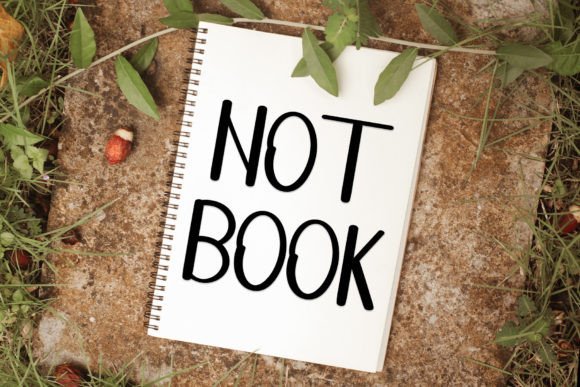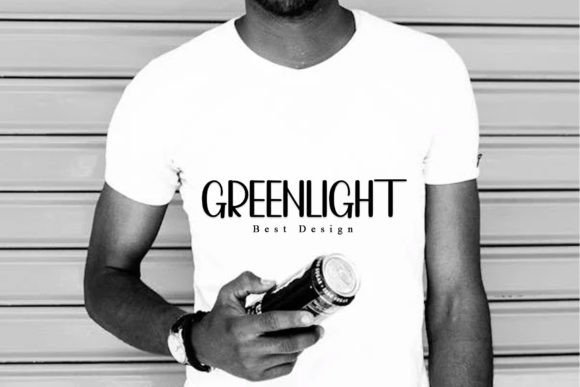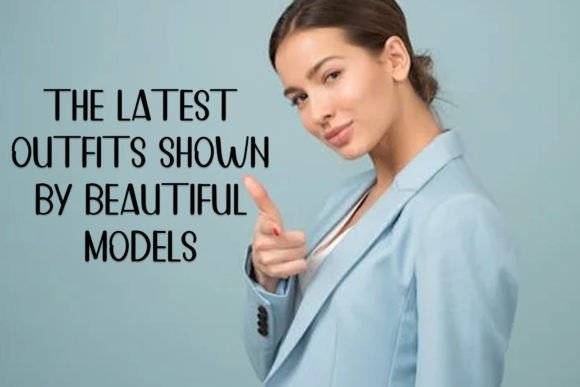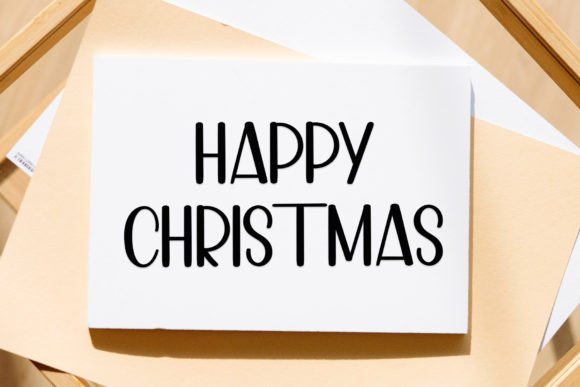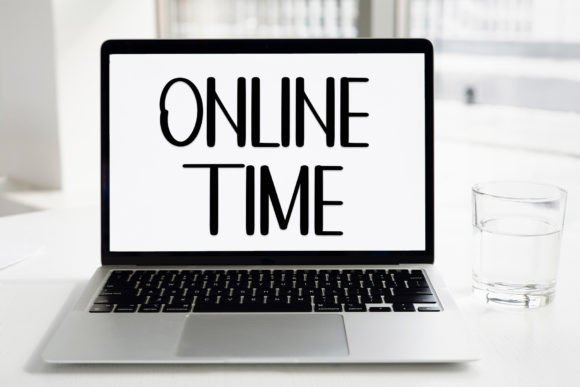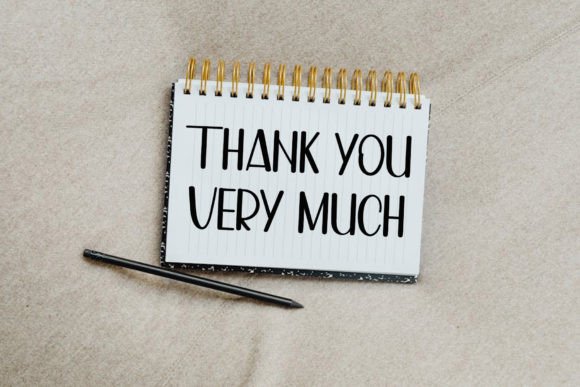
The Power of Creative Design Font: Elevate Your Designs with Elegance and Charm
As a designer or crafter, you’re constantly on the lookout for innovative ways to make your work stand out. One of the most effective ways to add a personal touch to your designs is by using a unique and stylish font. This is where the Creative Design font comes in – a beautiful, elegant, and charming font that can instantly elevate your creations. In this article, we’ll explore the features and benefits of the Creative Design font, and how it can bring a sense of warmth and creativity to your designs.
What is Creative Design Font?
Creative Design font is a stylish and sophisticated typeface that exudes elegance and charm. Its fluid strokes and natural flow create a captivating look that’s perfect for adding a personal touch to various design projects. Whether you’re working on invitations, branding, or social media graphics, this font is sure to make your designs stand out.
Key Features of Creative Design Font
- Fluid Strokes: The Creative Design font features fluid strokes that give it a smooth, natural look. This makes it perfect for designs that require a touch of elegance and sophistication.
- Natural Flow: The font’s natural flow creates a sense of movement and energy, making it ideal for designs that need to capture attention.
- Captivating Look: The combination of fluid strokes and natural flow creates a captivating look that’s sure to draw the viewer in.
- Versatility: The Creative Design font is versatile and can be used for a wide range of design projects, from invitations and branding to social media graphics.
Benefits of Using Creative Design Font
So, why should you use the Creative Design font in your designs? Here are just a few benefits:
- Adds a Personal Touch: The Creative Design font allows you to add a personal touch to your designs, making them more unique and engaging.
- Conveys Elegance and Charm: The font’s elegant and charming style makes it perfect for designs that require a sophisticated look.
- Enhances Creativity: The Creative Design font can inspire creativity and help you think outside the box when it comes to your designs.
- Perfect for Various Design Projects: Whether you’re working on invitations, branding, or social media graphics, the Creative Design font is a great choice.
- Use it for Headings and Titles: The font’s elegant style makes it perfect for headings and titles, adding a touch of sophistication to your designs.
In conclusion, the Creative Design font is a powerful tool that can elevate your designs with elegance and charm. Its fluid strokes and natural flow create a captivating look that’s perfect for adding a personal touch to various design projects. With its versatility, ease of use, and range of benefits, the Creative Design font is a great choice for designers and crafters looking to take their work to the next level.